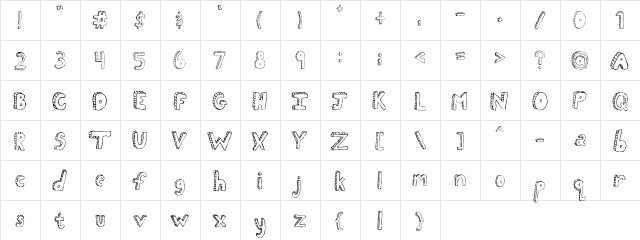
Fh_Scribble Regular
Regular · Dan Meyer (Fictionalhead) Dan Meyer (Fictionalhead) ·
Design Context for Fh_Scribble Typeface
Fh_Scribble is a composed and adaptable typeface that performs quietly and consistently across a wide range of design contexts.
Pro Tip: Pair Fh_Scribble with a font of contrasting weight or personality to build a more expressive typographic hierarchy.